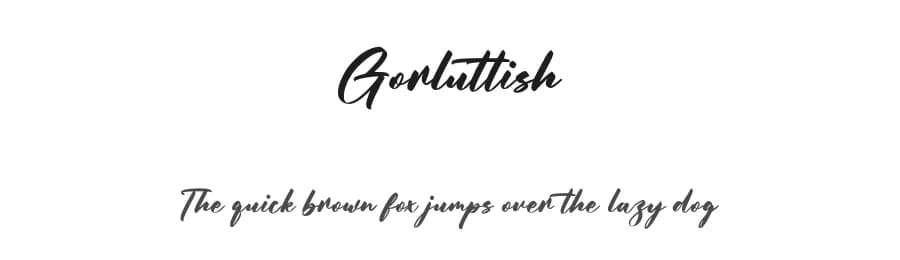
About Gorluttish Font
Gorluttish Specifications
| Font Family | Gorluttish Free Font |
| Full Name | Gorluttish Free Font Regular |
| Designer | MaulanaCreative |
Gorluttish Font is a script font that shines as a display or heading face. Pair it with a clean sans-serif or serif font for body text β the contrast creates a clear hierarchy while the two styles stay balanced and easy to read.
Gorluttish Font